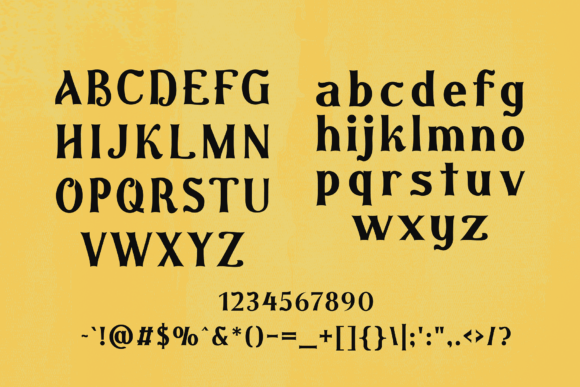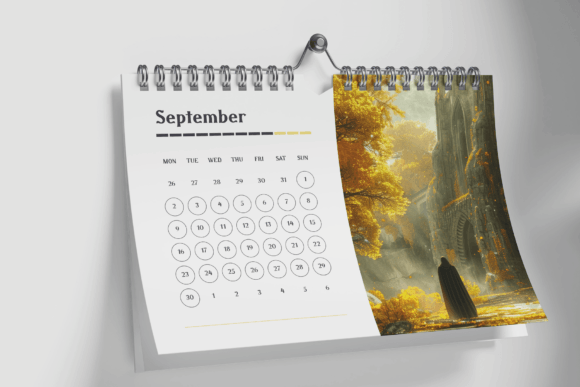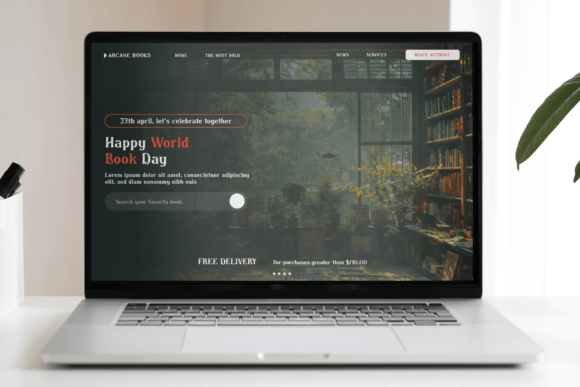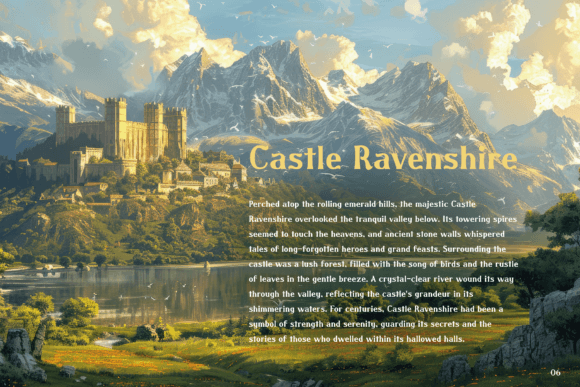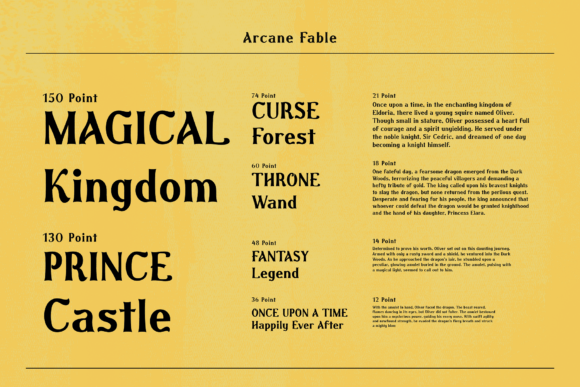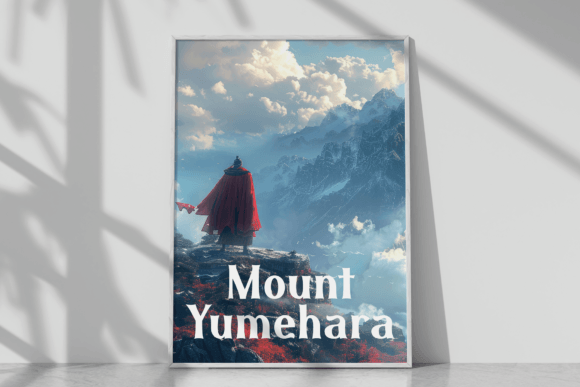
Introducing Arcane Fable: A Fantasy-Inspired Typeface for Enchanted Storytelling
In the realm of typography, few fonts capture the essence of fantasy and magic as effectively as Arcane Fable. This enchanting typeface is specifically designed for stories and books, bringing a touch of whimsy and grandeur to your tales. Whether you’re writing epic sagas, fairy tales, or whimsical adventures, Arcane Fable provides the ideal blend of readability and fantasy flair, perfect for book covers, chapter headings, and body text.
The Inspiration Behind Arcane Fable
Arcane Fable draws inspiration from the mystical and magical worlds that populate fantasy literature. Its design is rooted in the idea of creating a typeface that not only resonates with the themes of wonder and enchantment but also enhances the narrative’s visual appeal. Each letterform in Arcane Fable is crafted to evoke a sense of mystique, making it an excellent choice for authors and designers looking to bring their stories to life.
Key Features of Arcane Fable
• Unique Letterforms: Arcane Fable boasts unique and intricate letterforms that set it apart from more traditional typefaces. Each character is designed to contribute to the overall fantastical feel of your text, making it perfect for titles, headings, and even body text.
• Readability: While Arcane Fable is undoubtedly a decorative font, it does not compromise on readability. Its clear and flowing design ensures that your text remains easy to read, making it suitable for both headings and longer passages of text.
• Versatility: This typeface is incredibly versatile, suitable for a wide range of fantasy-themed projects. From the covers of fantasy novels to the headings of magical manifestos, Arcane Fable can add a touch of magic to any piece of writing.
• Whimsical and Grand: The font strikes a perfect balance between whimsy and grandeur. Its elegant lines and curves bring a sense of sophistication and wonder to your text, making it ideal for epic sagas, fairy tales, and other fantastical stories.
Using Arcane Fable in Your Projects
Integrating Arcane Fable into your design projects is straightforward. Whether you’re working on a book cover, an in-book chapter heading, or even a website dedicated to your fantasy world, this typeface can be easily incorporated into your design workflow. Here are a few suggestions on how to use Arcane Fable:
• Book Covers: Use Arcane Fable for the title and author name to immediately convey the fantasy genre and capture potential readers’ attention.
• Chapter Headings: Differentiate each chapter with various weights or colors of Arcane Fable, adding to the story’s visual appeal and guiding readers through the narrative.
• Body Text: For a fully immersive experience, use Arcane Fable for the body text as well. Its readability ensures that the magical atmosphere doesn’t come at the expense of clarity.
Tips for Pairing Arcane Fable with Other Fonts
While Arcane Fable is stunning on its own, pairing it with complementary fonts can further enhance your design. Here are some tips for effective font pairing:
• Contrasting Fonts: Pair Arcane Fable with a clean, sans-serif font for body text to create a visually appealing contrast that highlights the fantasy elements.
• Serif Fonts: For a more traditional look, consider pairing Arcane Fable with a serif font. This combination works well for creating a cohesive and classic fantasy feel.
• Script Fonts: Adding a touch of elegance, script fonts can be paired with Arcane Fable for titles or quotes, adding another layer of sophistication to your design.
Author HipFonts
Arcane Fable is more than just a typeface; it’s a tool for storytellers to weave their magic into the hearts and minds of their readers. With its unique blend of readability and fantasy flair, Arcane Fable is poised to become a favorite among authors, designers, and crafters looking to bring their fantastical worlds to life. Whether you’re embarking on creating the next epic saga or compiling a collection of fairy tales, Arcane Fable is your gateway to crafting visually enchanting stories that captivate and inspire.